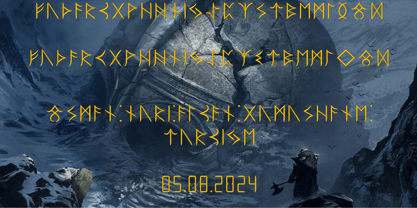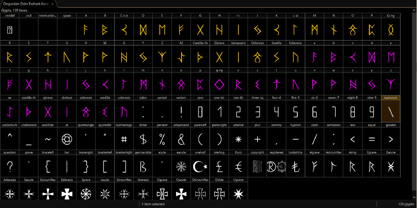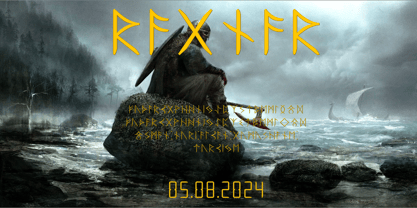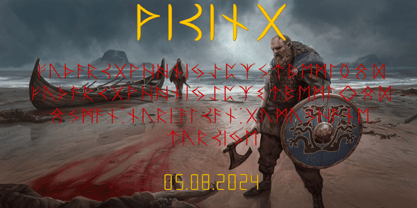
Ongunkan Elder Futhark Karablgs
by Runic World Tamgacı
The Ongunkan Elder Futhark Karablgs Font Family was designed by Osman Nuri ALKAN and published by Runic World Tamgacı. Ongunkan Elder Futhark Karablgs contains 1 styles. More about this family
For Elder Futhark, I took the runic typography used in the Karabalgasun 1 monument, an ancient Turkic monument, as an example and adapted that design for Elder Futhark. It turned out to be a visually appealing font, offering a fantastic look. It was a typography suitable for use in beautiful works. The Elder Futhark (or Fuþark, /ˈ f uː ð ɑːr k/), also known as the Old Futhark, or Germanic Futhark, is the earliest form of the runic alphabets. It was a writing system used by Germanic peoples during the Migration Period. Inscriptions have been found on artifacts including jewellery, amulets, crockery, tools, and weapons, as well as runestones, from the 2nd to the 8th centuries.
Designers: Osman Nuri ALKAN
Foundry: Runic World Tamgacı